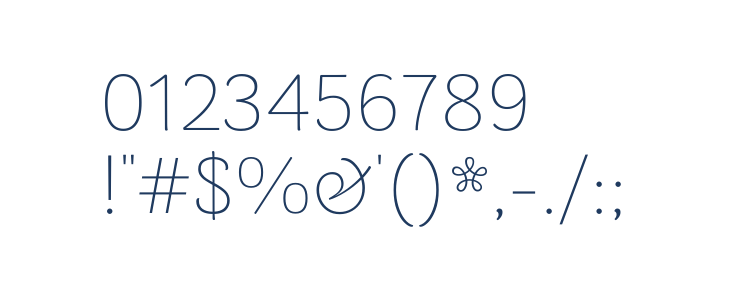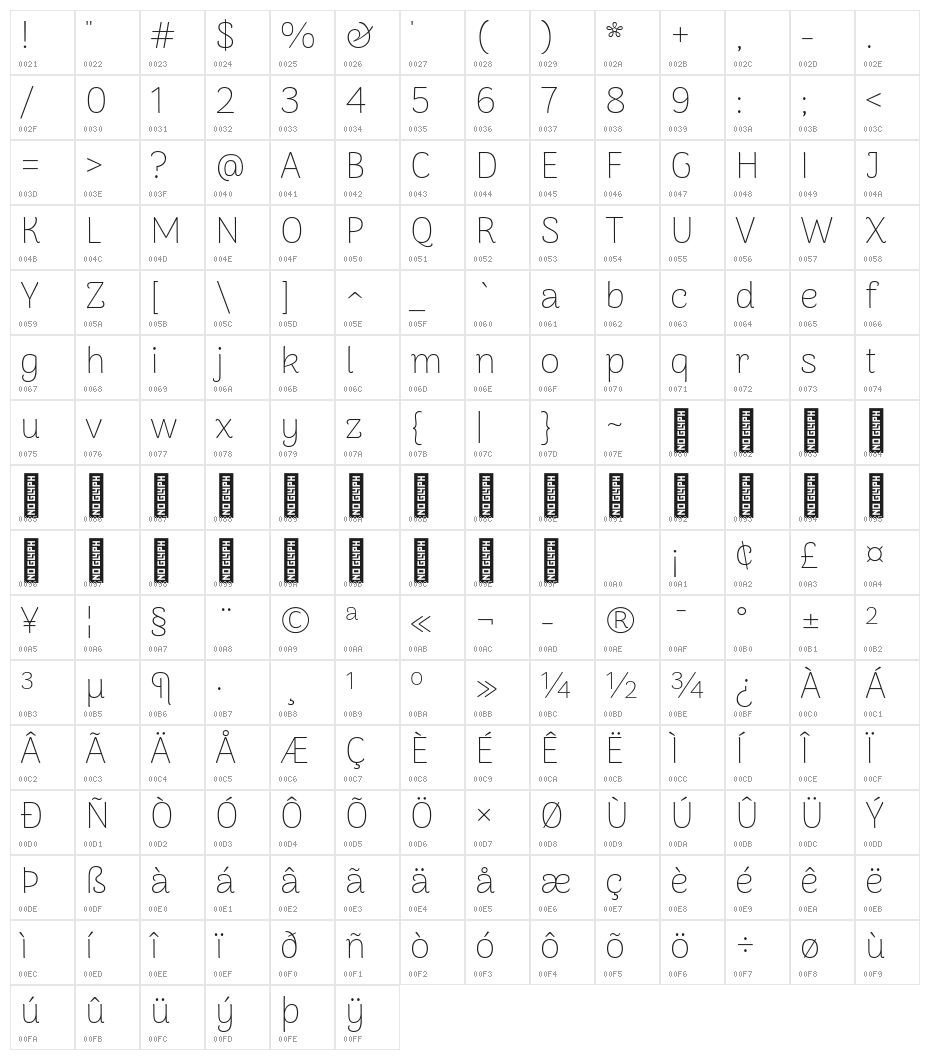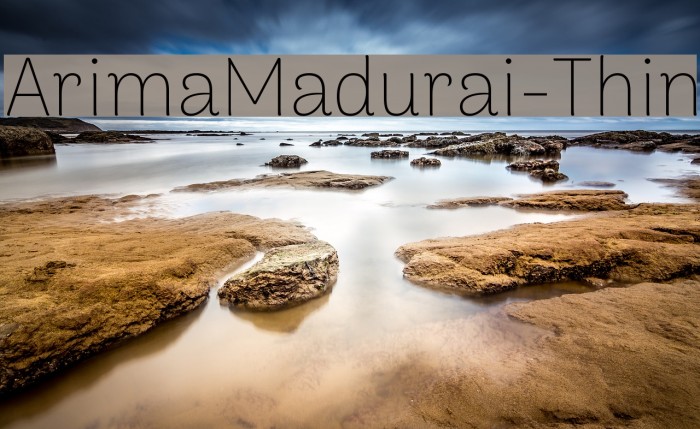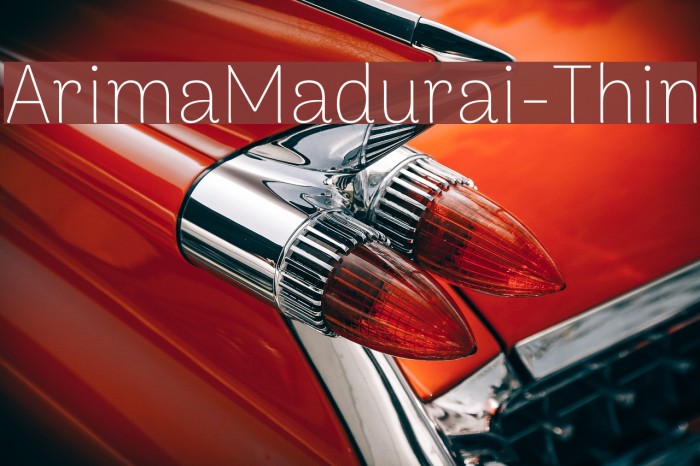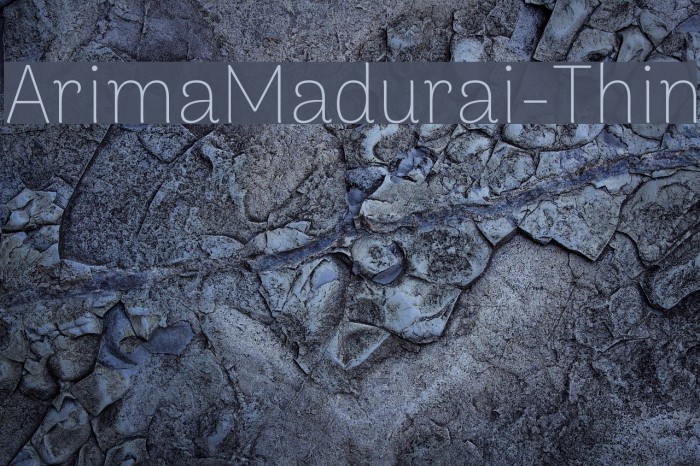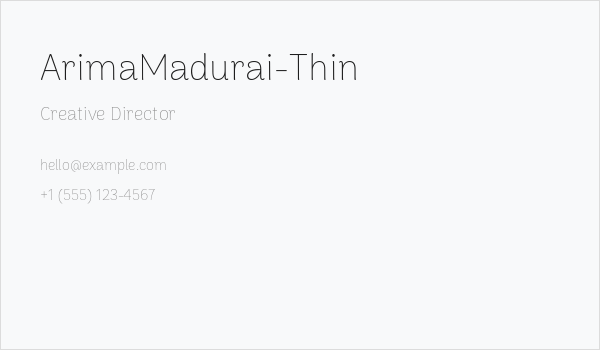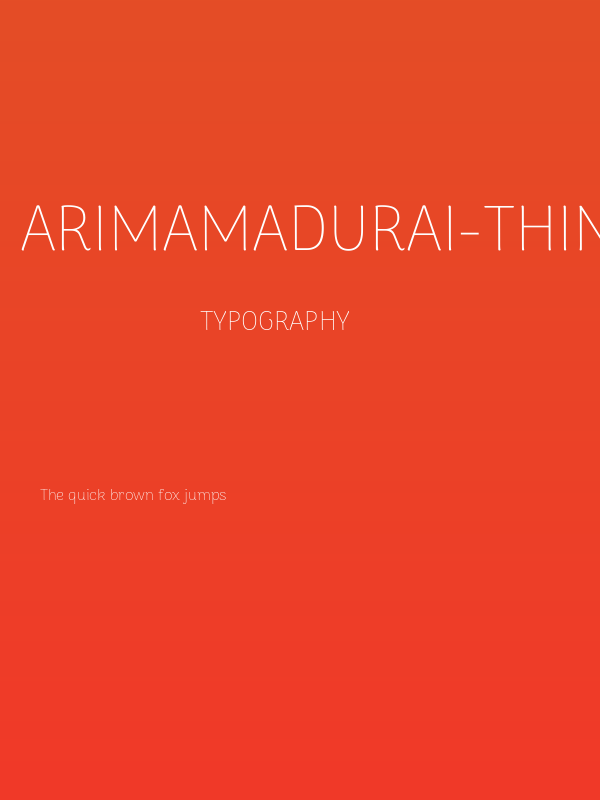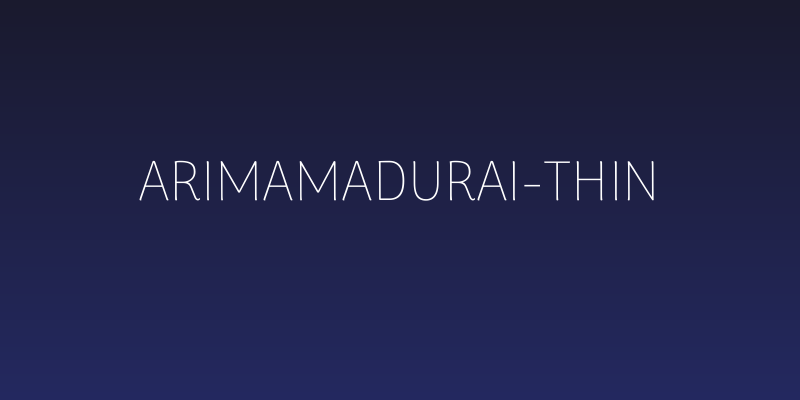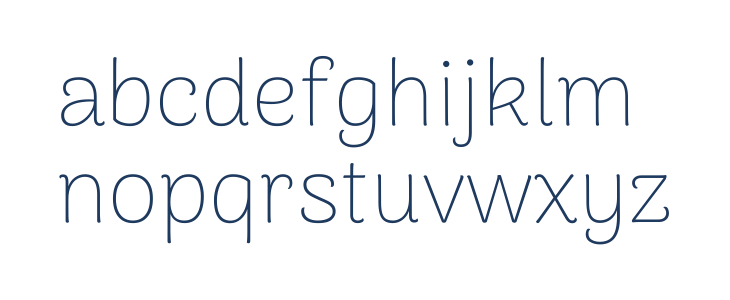
ArimaMadurai-Thin Font
ArimaMadurai-Thin Description
This font features a clean and modern sans-serif design with a thin weight, offering a sleek and elegant appearance. The characters are well-proportioned, with a consistent stroke width that provides a harmonious and balanced look. The uppercase and lowercase letters maintain a uniform style, enhancing readability and visual appeal. The numerals are clear and distinct, making them suitable for various applications. The special characters are thoughtfully designed, complementing the overall aesthetic of the font. Its simplicity and clarity make it versatile for both digital and print media.